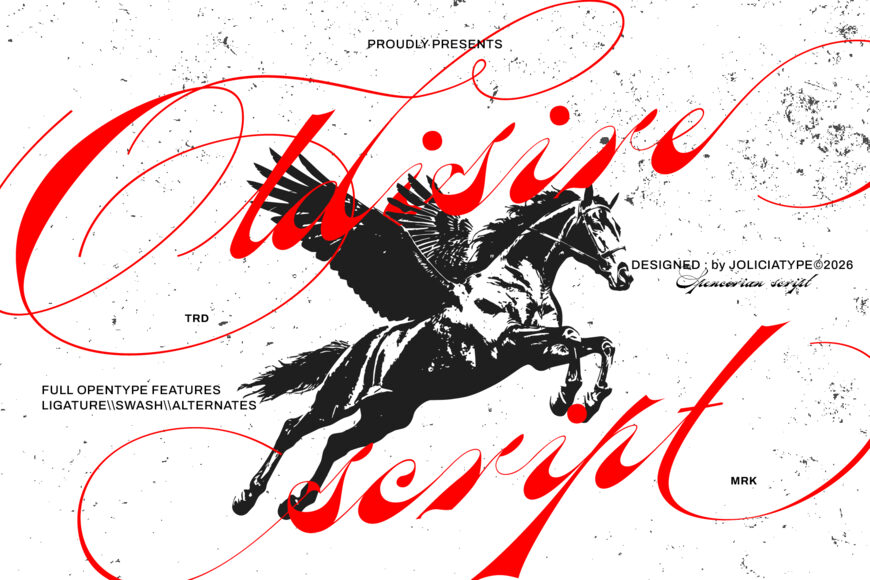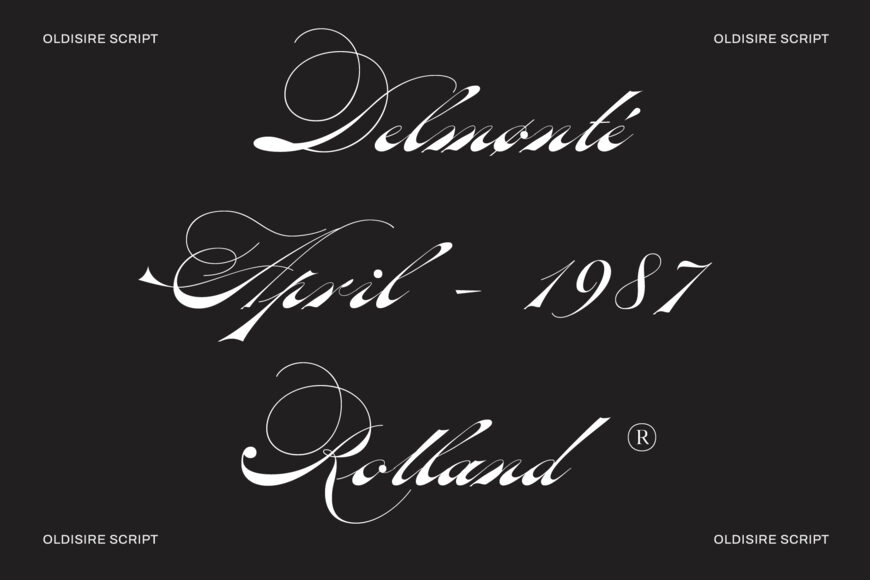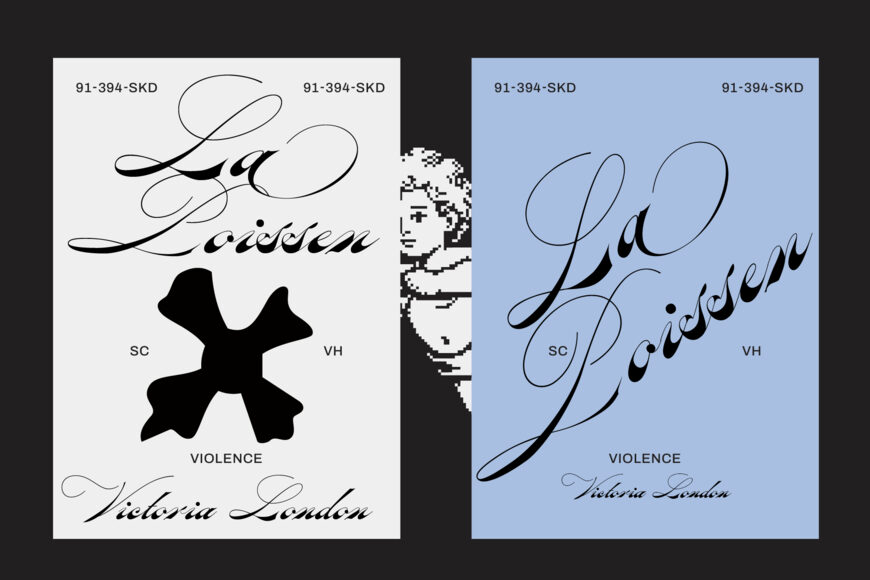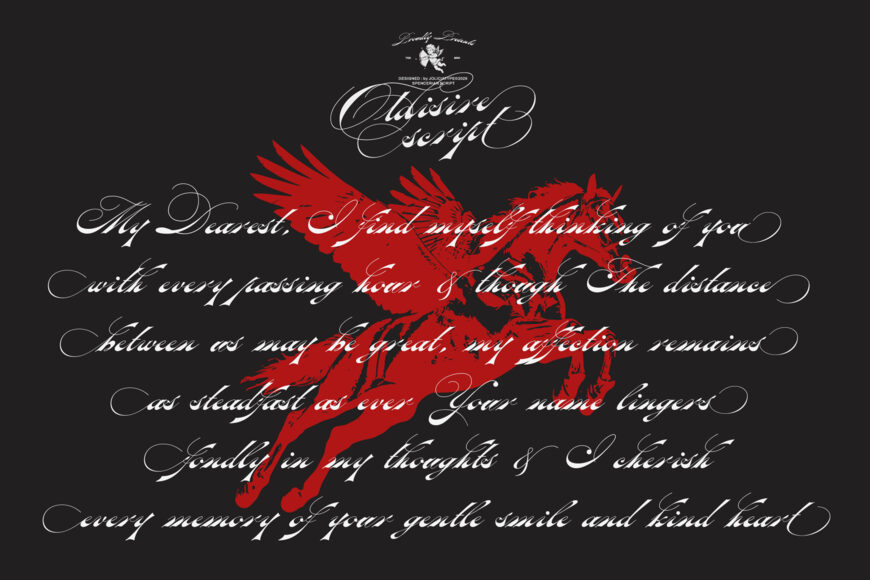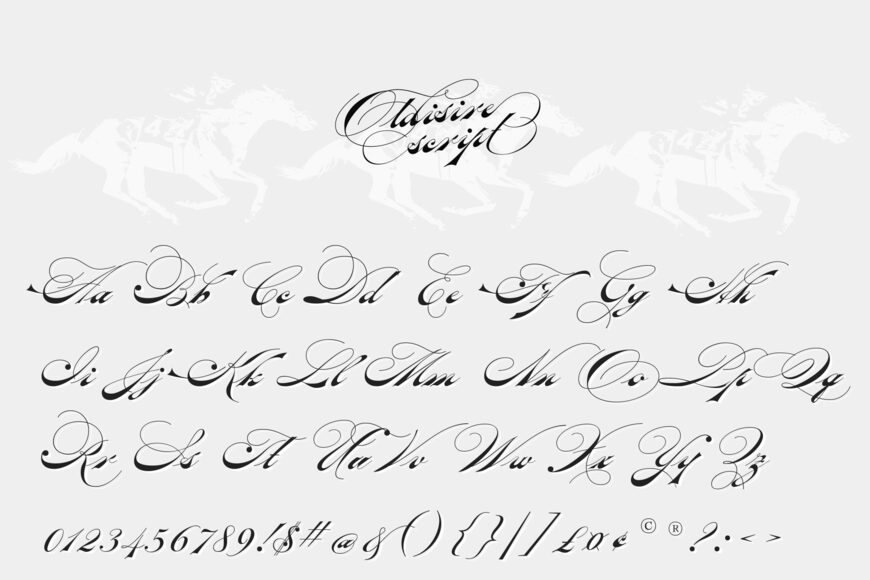
Oldisire Script is an elegant vintage script font inspired by the graceful lettering and refined penmanship of the Spencerian era. With its dramatic flourishes, sweeping curves, delicate connections, and expressive letterforms, Oldisire Script captures the timeless charm of 19th-century American calligraphy while adding a bold and sophisticated contemporary character.
Designed with flowing swashes, beautiful ligatures, and stylistic alternates, Oldisire Script allows you to create expressive and luxurious typography with an authentic handcrafted feel. Its elegant rhythm and elaborate details make every word feel like a piece of classic engraved lettering.